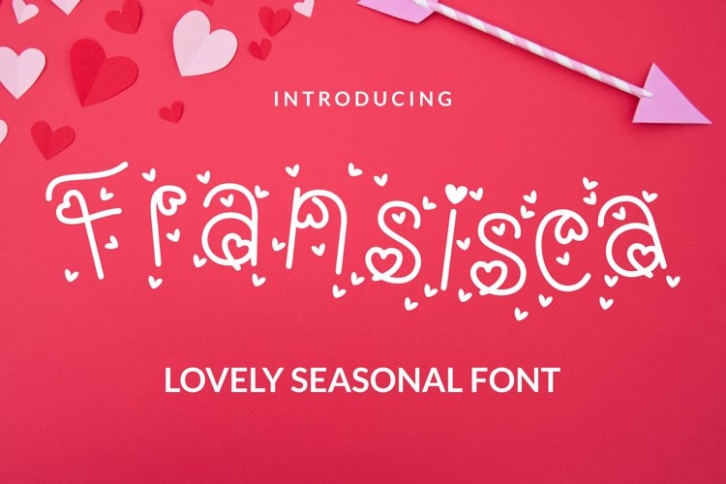
Fransisca is a great font that was designed by plusstore. Imagine the amount of combinations you can create using this font! The archive is 6.28 MB and it was released on September 10, 2021. Fransisca looks beautiful on wedding invitations, greeting cards, logos, posters, labels, t-shirt designs, logos, business cards and is perfect for use in ink or watercolor works, fashion, magazines, packaging and food menus, children's books and more!